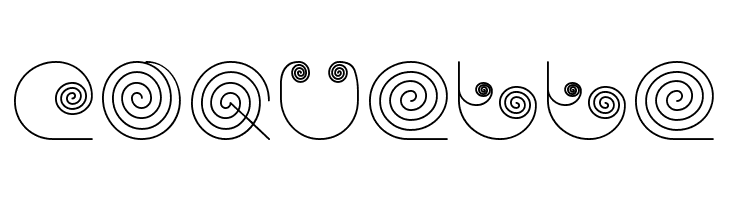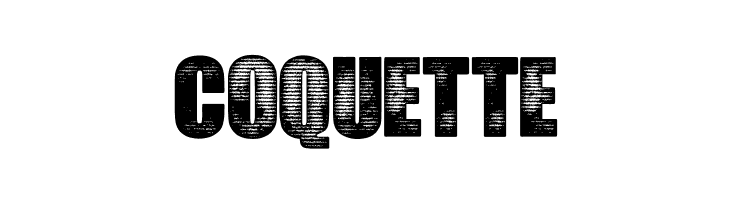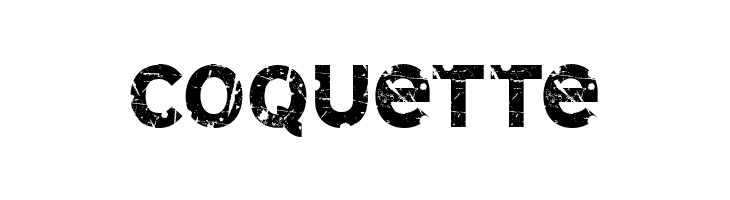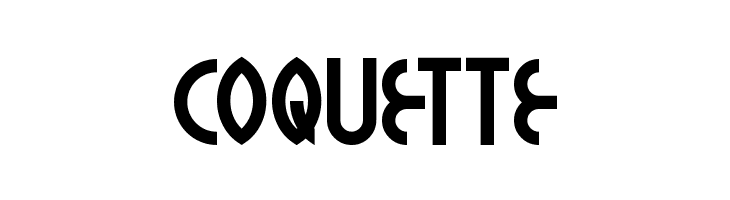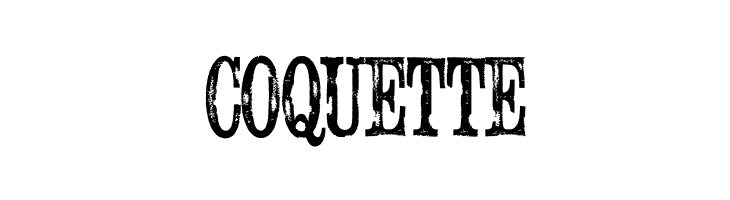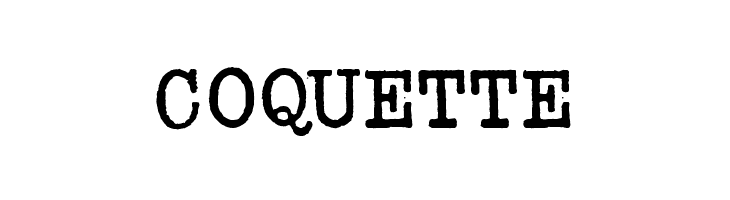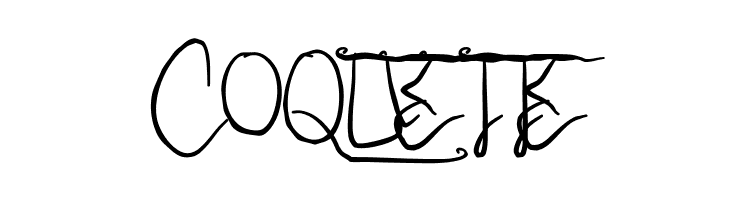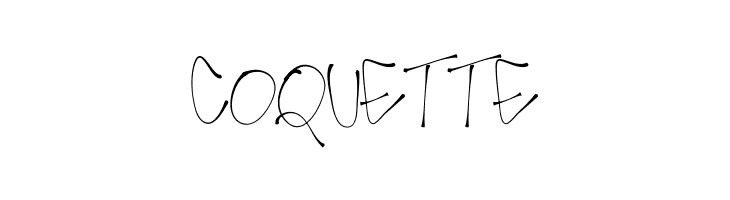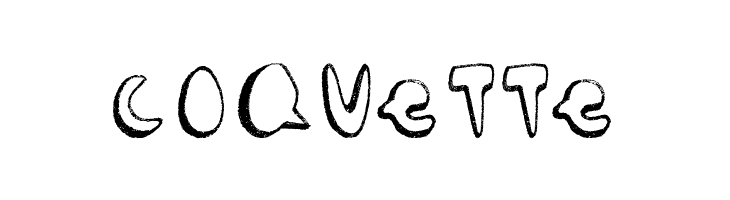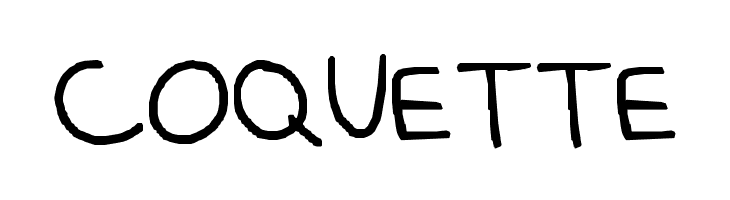
An artistic and decorative font with intricate flourishes and elegant strokes.
An artistic, decorative font with intricate loops and flourishes.
A bold, distressed font with a grunge texture and rugged appearance.
A playful, hand-drawn font with wavy, oceanic-inspired strokes.
A playful, casual handwritten font with an organic flow and friendly appearance.
A decorative font with seaside-themed illustrations, perfect for nautical designs.
A bold, geometric font with a futuristic and modern aesthetic.
A bold, geometric font with a futuristic and dynamic style.
A playful, handwritten font with irregular shapes and dynamic line thickness.
A bold, distressed font with a vintage, textured appearance.
A whimsical font with intricate spiral designs and thin lines.
A whimsical font with intricate spiral patterns and decorative swirls.
A modern, geometric font with a minimalist and structured design.
A bold, geometric font with a digital, pixelated style.
A playful, handwritten font with fluid strokes and a casual style.
A modern, clean, and versatile font with excellent readability.
A classic serif font with bold, clear characters and strong readability.
A modern, sans-serif font with clean lines and balanced proportions.
A modern sans-serif font with clean lines and balanced proportions.
A modern serif font with balanced proportions and elegant strokes.
A modern, clean sans-serif font with uniform stroke width and excellent readability.
A bold, modern sans-serif font with clean lines and excellent readability.
A modern sans-serif font with clean, uniform strokes and excellent readability.
A modern, clean sans-serif font with balanced spacing and consistent stroke width.
A modern sans-serif font with clean, balanced letterforms and consistent stroke widths.
A bold, distressed font with a vintage, textured style.